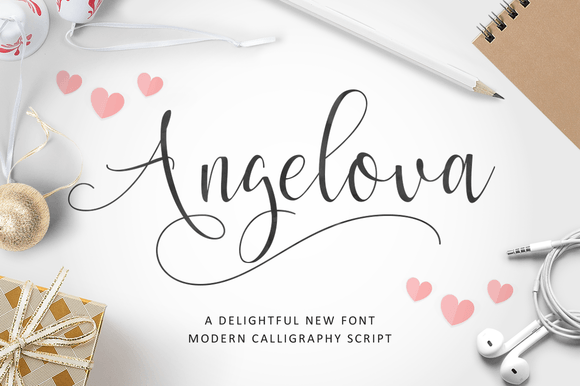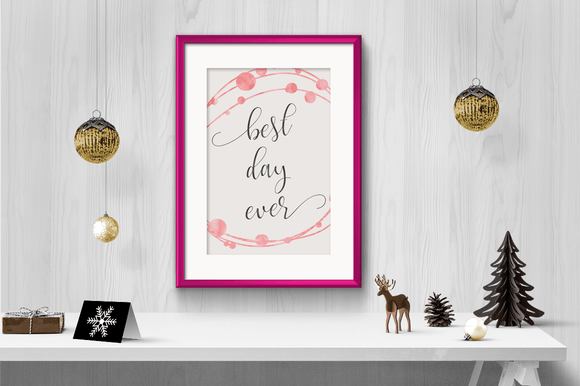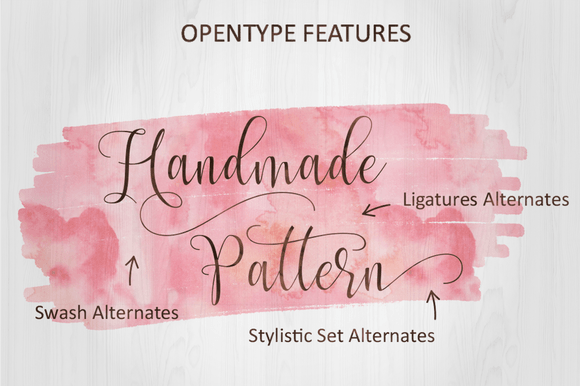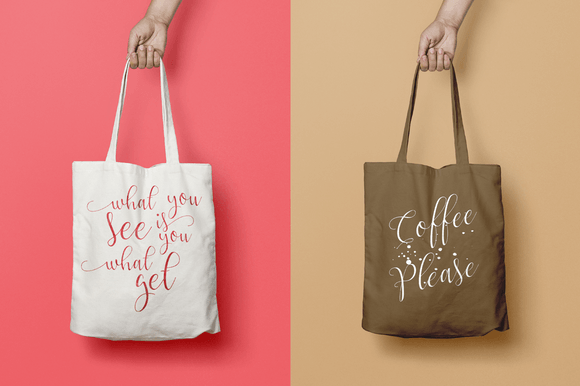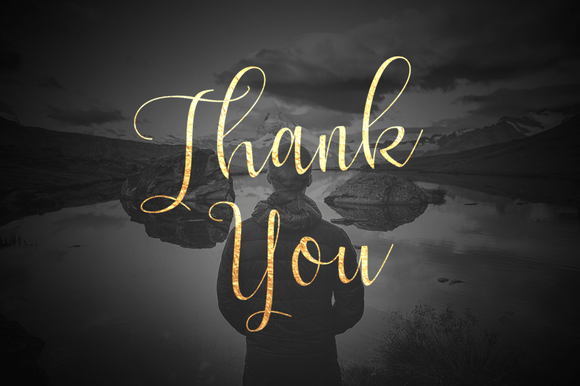
Angelova Font
About Angelova Font
Angelova is a delightful, modern, new font calligraphy script.
Can be used for various purposes. such as headings, logos, wedding invitations, t-shirts, letterheads, signage, labels, news, posters, badges, and much more.